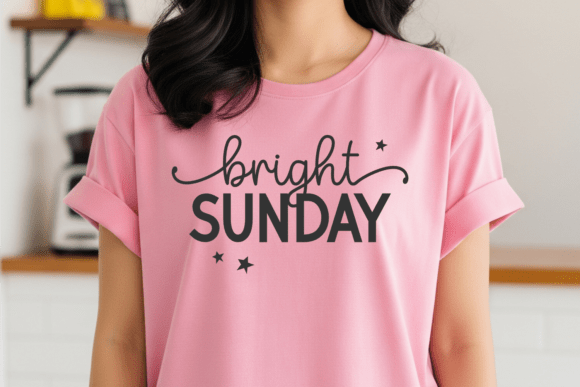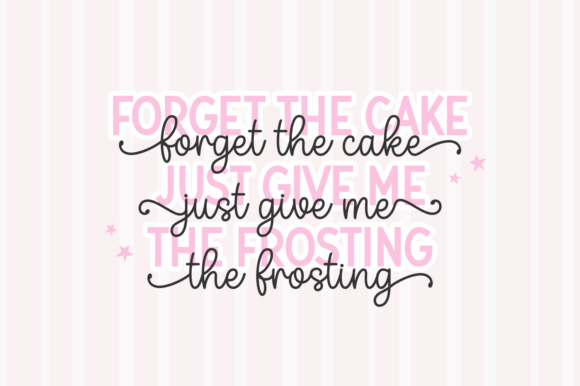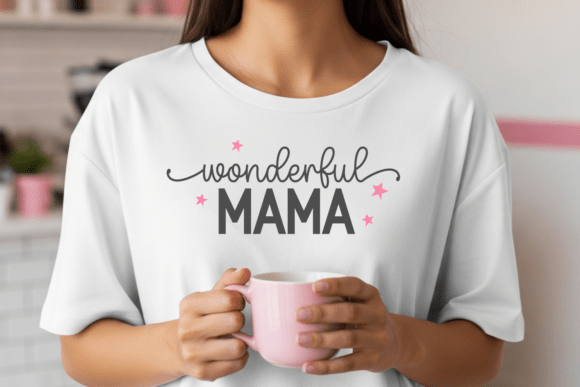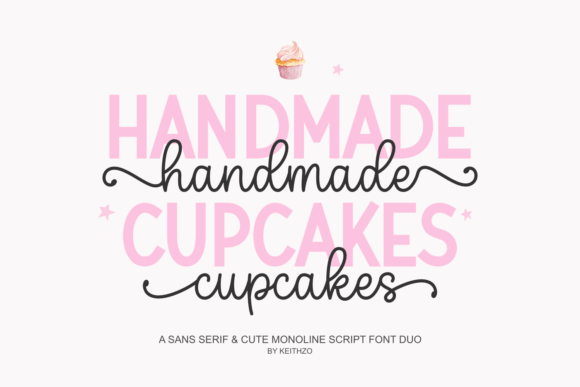
Introduction to Handmade Cupcakes Font
Indulge your creative side with the Handmade Cupcakes typeface; a confectionery-inspired duo font that effortlessly mirrors the enticing allure of a mouthwatering baked delight.
Versatile and rich, the font offers two decadently alluring styles: a crisp display sans-serif and a whimsical monoline script, rendering it the perfect mix for design pursuits that epitomize sophistication, modernity and beguiling charm Jam-packed with a variety of symbols and compatible with multiple languages, the Handmade Cupcakes blends smoothly with various applications, including but not limited to Canva, Procreate, Cricut, and Silhouette Studio.
Key Features of Handmade Cupcakes Font
Why Choose Handmade Cupcakes Font?
Handmade Cupcakes Font offers exceptional quality and versatility, making it a valuable addition to your design toolkit. Whether you’re creating for personal projects or commercial use, Handmade Cupcakes Font delivers professional results.